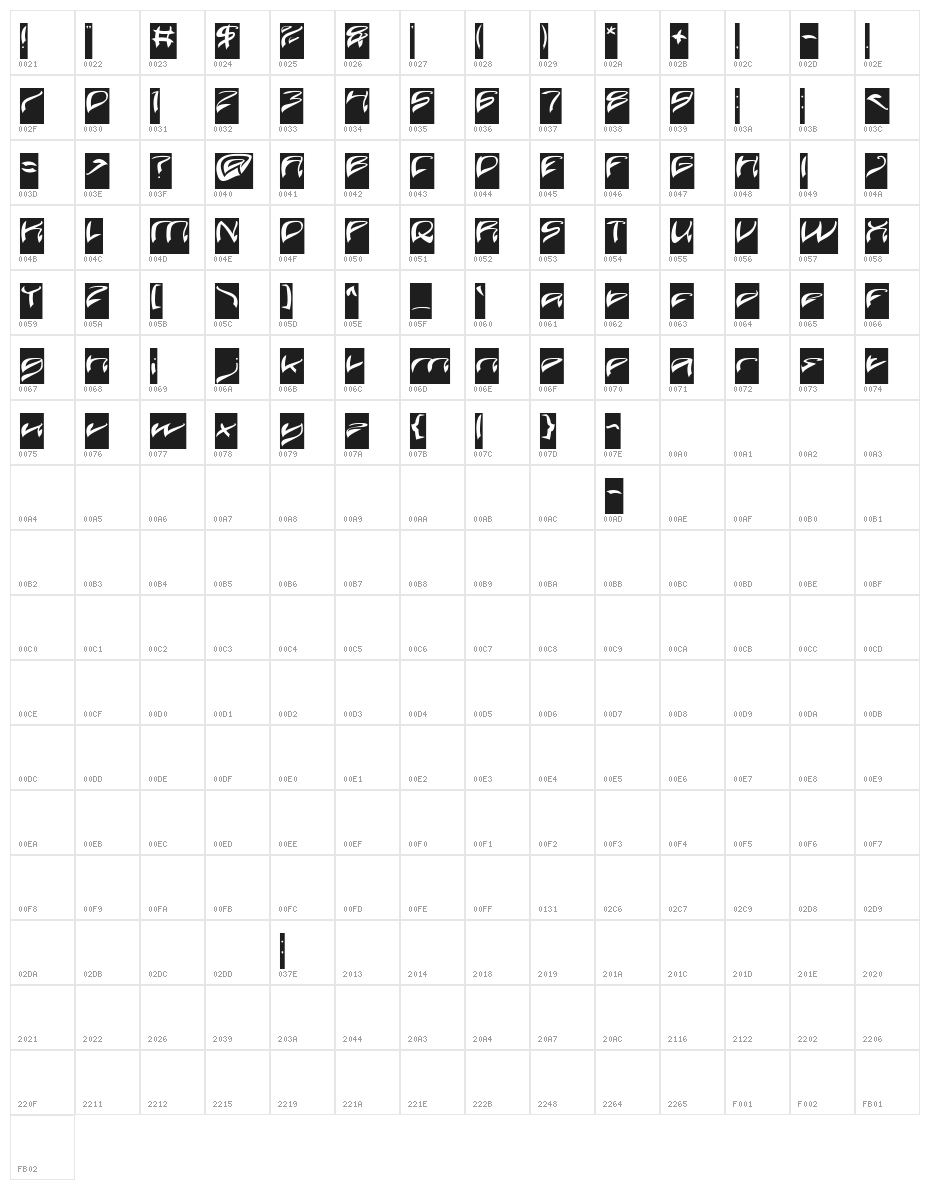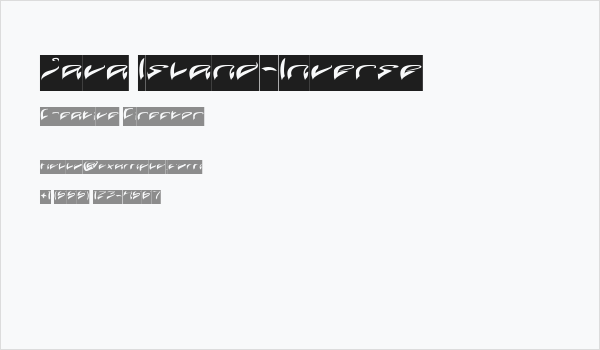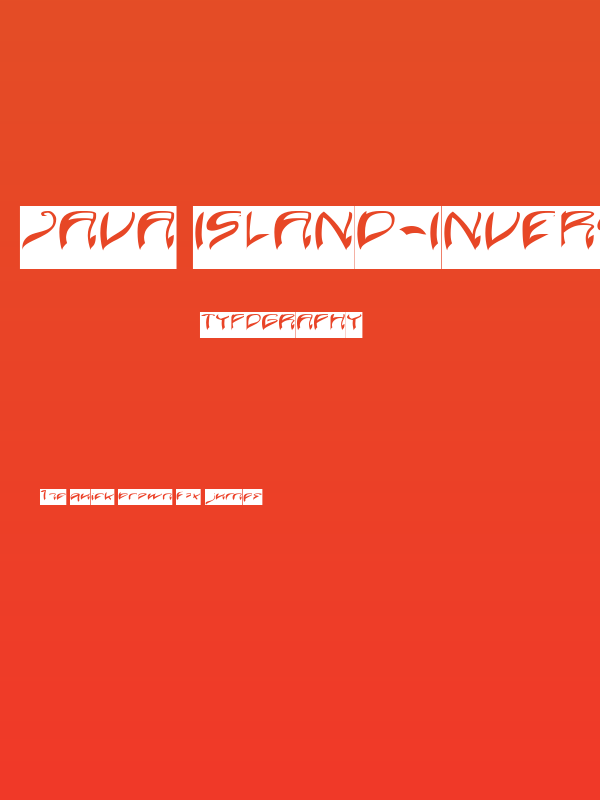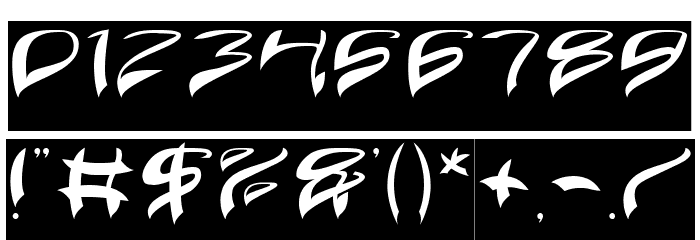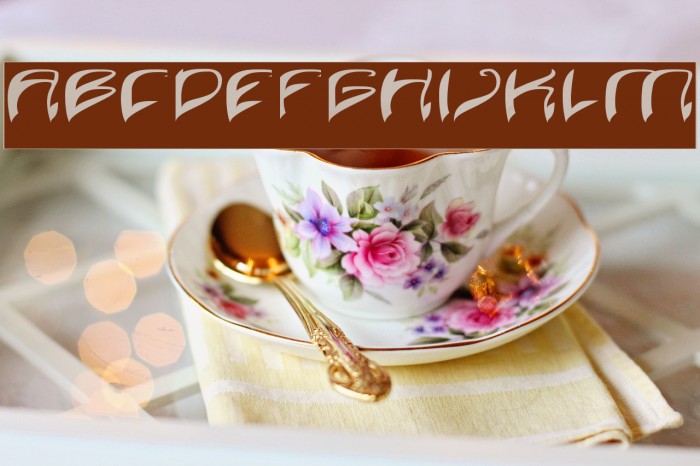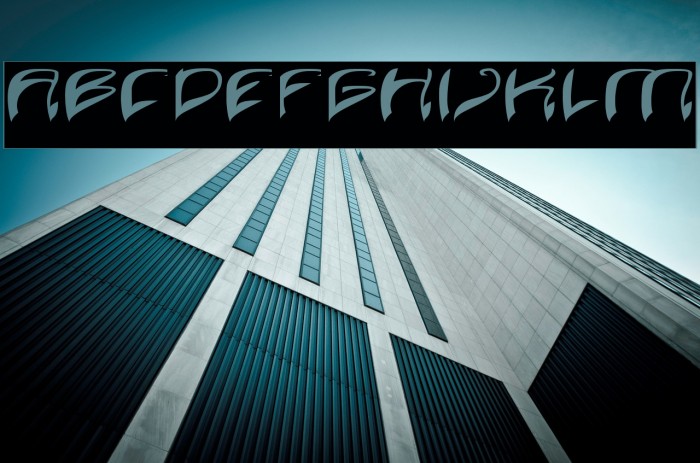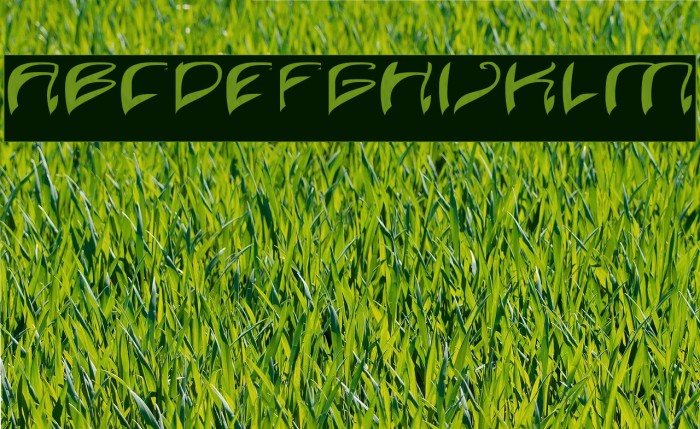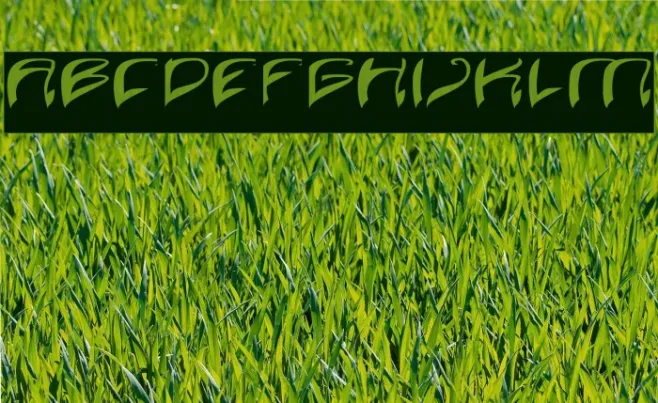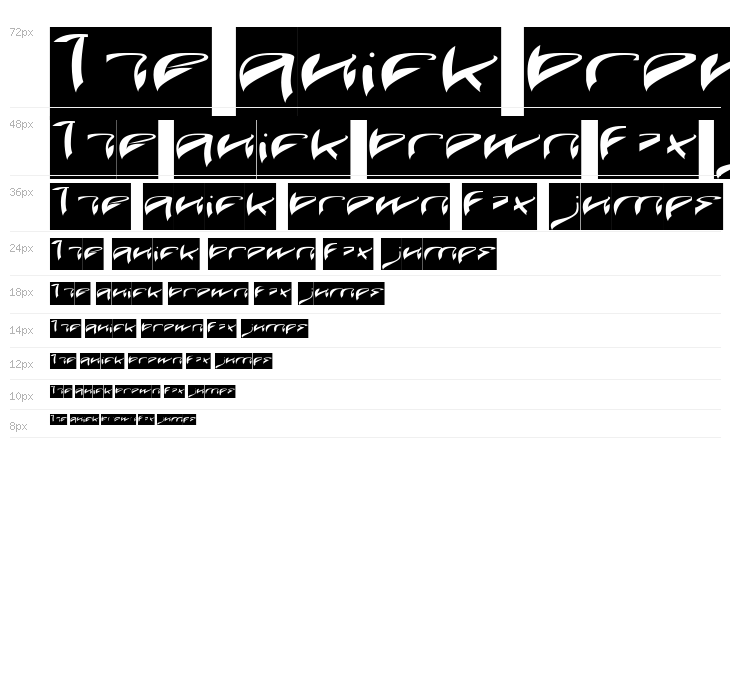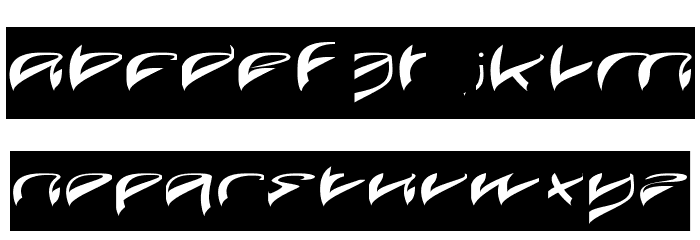
Java Island-Inverse Font
Java Island-Inverse Description
This font features a bold and dynamic style with sharp, angular lines and a distinct, edgy appearance. The characters are designed with a high level of contrast between thick and thin strokes, giving them a dramatic and impactful look. The uppercase and lowercase letters maintain a consistent style, with a unique flair that suggests movement and energy. The numbers and special characters are equally stylized, ensuring a cohesive look across all glyphs. This font's design is reminiscent of calligraphic influences, yet it maintains a modern and artistic edge.
| Overall Style | Modern, Artistic |
| Proposed Projects | Ideal for projects requiring a strong visual impact, such as branding, posters, album covers, and video game graphics. |